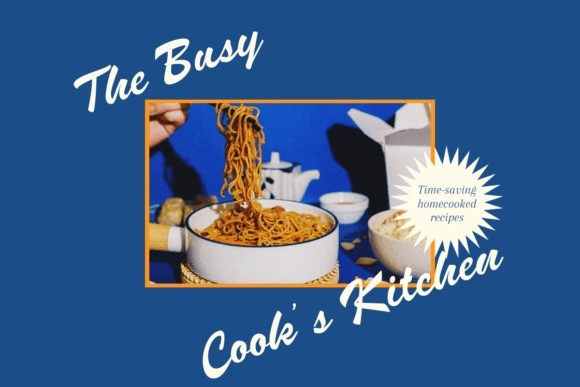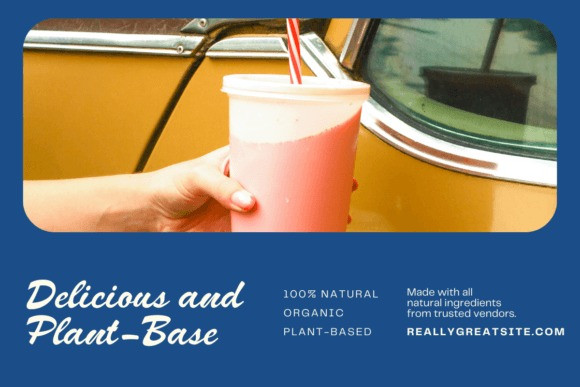
Brilliant Dreams Font
Brilliant Dreams Font is a bold script font that exudes an artistic and courageous touch to elevate your designs. Meticulously crafted with precision and expertise, this font showcases the beauty of modern hand lettering, empowering you to create designs that are bold and brimming with vibrancy.